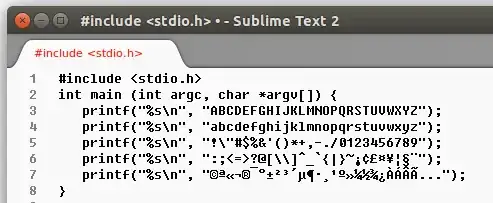
This is the solution I found. I have tested it thoroughly several times, and I have been using the resulting font in a number of places for over 2 years now, but be warned: some parts of the procedure may be anywhere from suboptimal to plain wrong.
Right-click on the FSEX301-L2.ttf file and open it with FontForge. In the Load Bitmap Fonts window that appears, click on No.
Click on File → Execute Script..., and copy&paste the following into the window that appears:
SelectAll()
foreach
if (GlyphInfo("Width") != 80)
DetachAndRemoveGlyphs()
else
b = GlyphInfo("BBox")
if (b[0] < 0 || b[1] < -30 || b[2] > 80 || b[3] > 130)
DetachAndRemoveGlyphs()
endif
endloop
SelectNone()
Then select FF and click OK (it will take a while, you will have to wait until the Execute Script window disappears)
Click Element → Font Info... In PS Names change the Fontname, Family Name, and Name for Humans, e.g., by appending Mono (spaces are allowed only in the second and third string).
In the same Font Information window, select OS/2.
In the Misc. tab change the PFM Family to Monospace.
In the Metrics tab, set Win Descent Offset and HHead Descent Offset both to 0 (*).
In the Panose tab, change Proportion to Monospaced.
In the same Font Information window, select Lookups.
In the GSUB tab, and in the GPOS tab, select each line in turn and click Delete.
In the same Font Information window, click OK, and in the Change UniqueID? window that appears click Change.
If you want, you can tweak one or more questionable features of Fixedsys. E.g., the zero character is shifted one pixel to the right. To shift it back to center, double click on it, then click Metrics → Set LBearing..., set the LBearing to 10 and click OK. You can also change the shape of characters, but always keep control points at multiples of 10, and the width at 80.
Click Element → Bitmap Strikes Available..., then, in the window that appears set Pixel Sizes to 16 and click OK.
Click File → Generate Fonts..., choose a different directory and/or a different filename if needed, make sure the output format is TrueType, and click Save. In the Non-standard Em-Size window that appears click Yes. In the Errors detected window that appears next click Save (don't worry).
Quit FontForge (File → Quit). In the Font changed window that appears click Don't Save.
Open the Gnome Terminal. Click Edit → Profiles... In a profile (I suggest you create a new one) change the font to Fixedsys Excelsior 3.01-L2 Mono (or whatever you have called the mono version of Fixedsys Excelsior), at size 12 (which is the only "true" Fixedsys size). If you want, you can also disable bold text. I suggest black text on white background, but that is a matter of taste.
The bold variant of this font is equivalent to repeating the character shifted by one pixel to the right (this is different from FSEX301-L2.ttf, where it appears smoothed). It is not very legible - but do you really need bold? I don't. The problem is only with those contexts where bold cannot be disabled (not even, e.g., by editing syntax highlighting), especially in those cases where the character spacing is incremented by one pixel as well, breaking alignments (this is not the case in gnome-terminal). I haven't found a solution to this last nuisance yet. Suggestions are welcome.